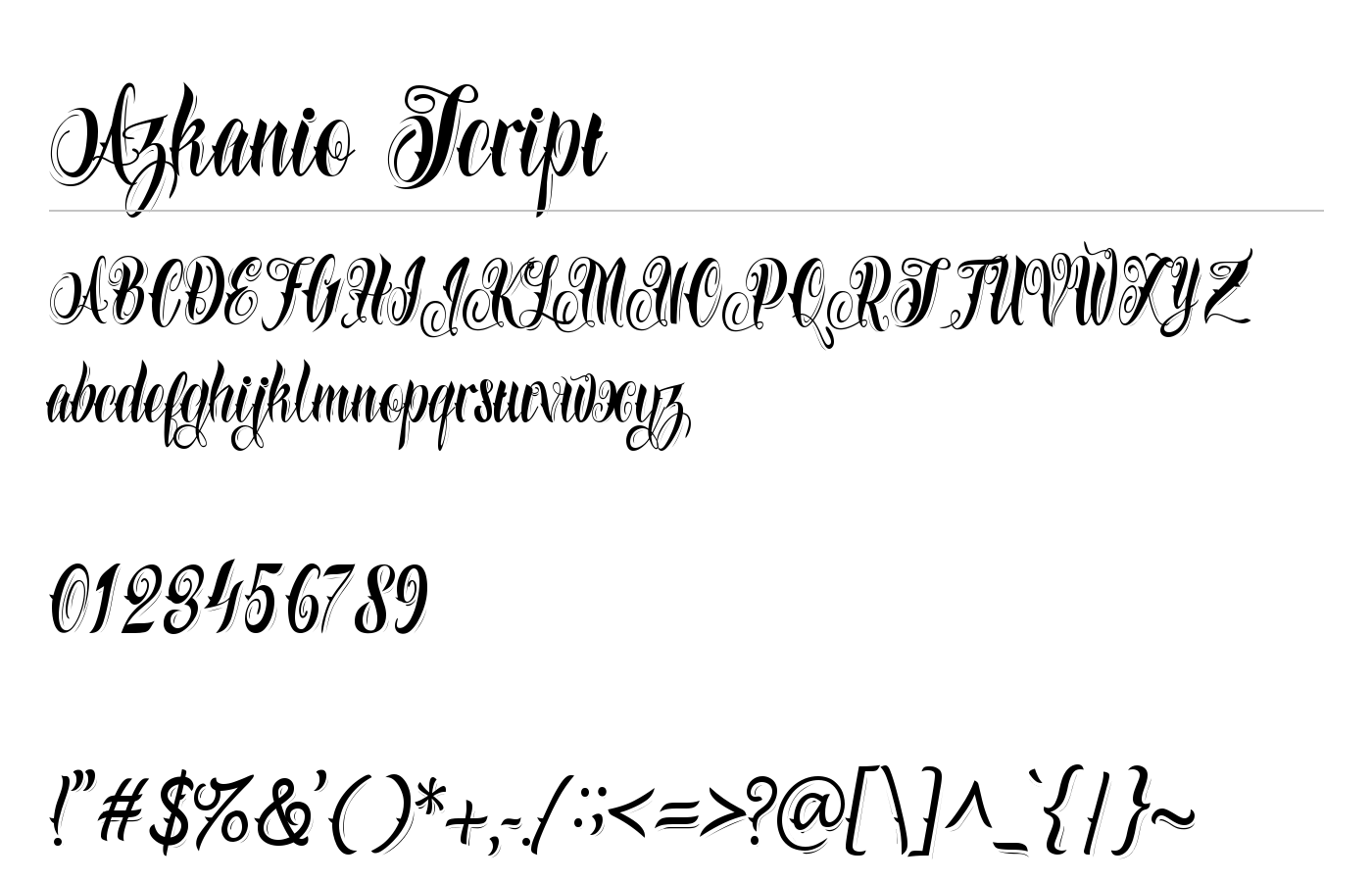
Azkanio Script is an elegant and decorative script font featuring tall, narrow letterforms with dramatic thick and thin contrast and intricate swashes that add a luxurious, vintage flair. Its ornate uppercase letters and fluid lowercase characters make it perfect for sophisticated branding, invitations, and logos where a refined, artistic touch is desired. This font shines in display settings, bringing a sense of grandeur and style to headlines and special occasions.
Azkanio Script Font
About Azkanio Script Font